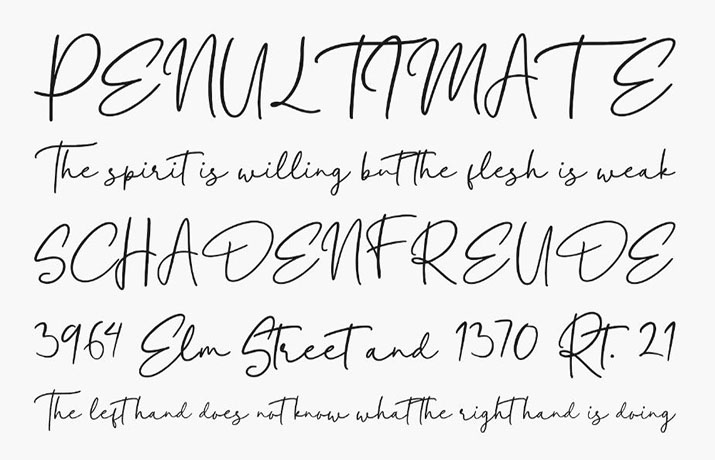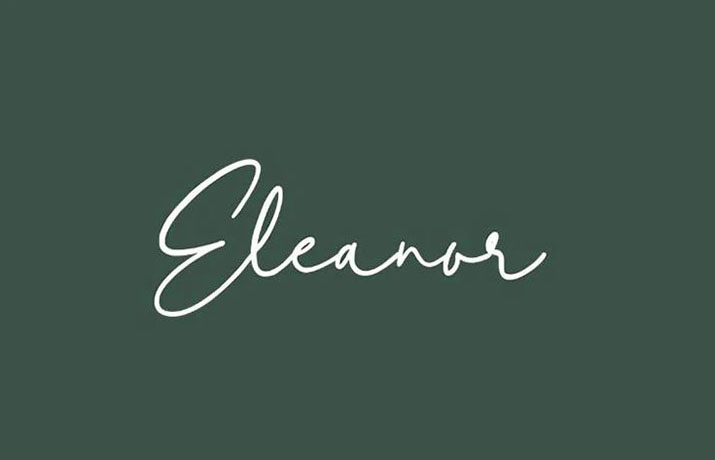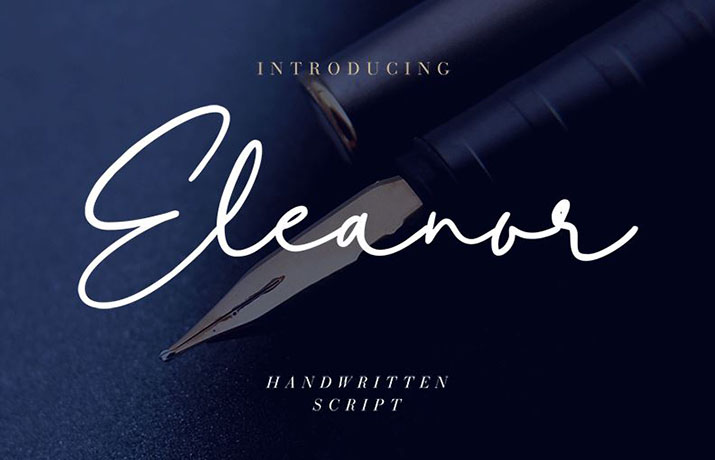
Eleanor Font is a script handwritten typeface that comes with flowing strokes and natural handwriting. It was designed and released by Creatype Studio.
Its graceful strokes and versatility make it ideal for multiple purposes such as invitations, greeting cards, branding, packaging, web design, signatures, cards, and social media posts,
Its letters are drawn with the help of a pencil in which the designer puts the natural flow deeply. Maybe the designer took inspiration from signatures. And its slightly irregular baseline and swashes give it a unique look.
“Eleanor typeface can be found in a single weight along with True Type features. This single weight contains 132 glyphs and 1702 binary stored kerning pairs. Moreover, it also supports 36 global languages.”
| Font Name: | Eleanor Font Family |
| Style: | Script, Handwritten, Typeface |
| Font Designer: | Creatype Studio |
- Its elegant strokes and flowing curves elevate any project, making it perfect for editorial design, branding, and other related fields. Almost any branding requirement can be effectively served by it, including social media postings, shopping bags, covers, signatures, product design, and packaging.
This font supports 36 multilingual languages.